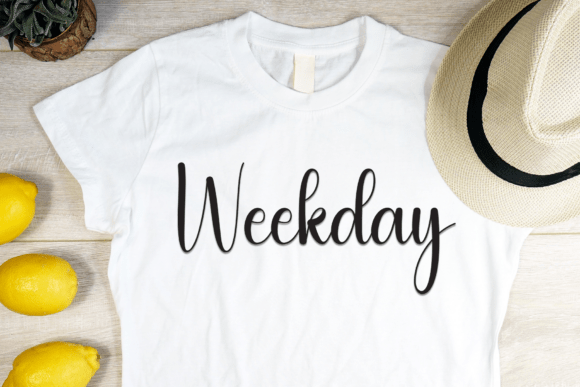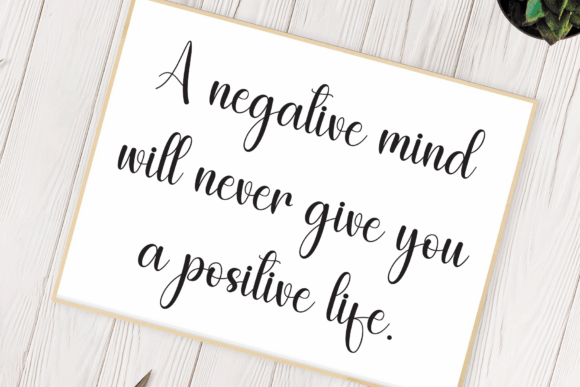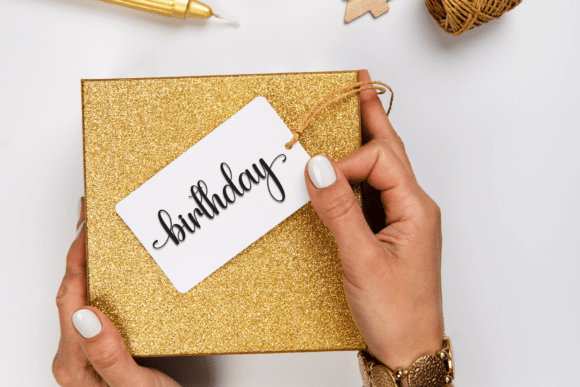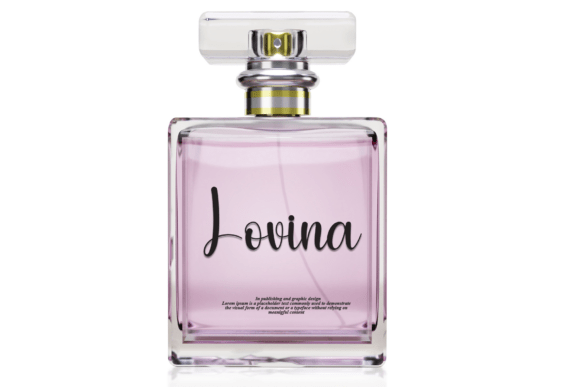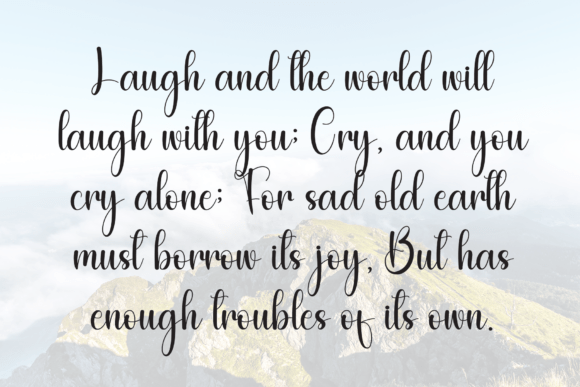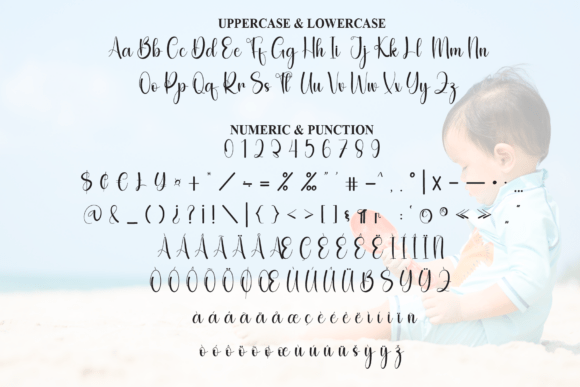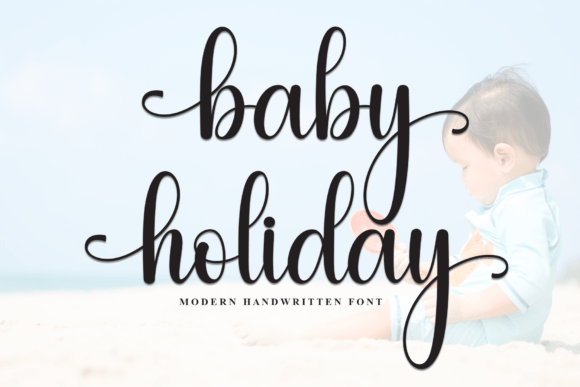
Baby Holiday Font: Elevate Your Designs with Artistic Flair and Contemporary Elegance
In the world of typography, few fonts manage to capture the perfect blend of artistic expression and modern sophistication. Baby Holiday Font is one such exceptional typeface that brings a refreshing combination of fluid brush strokes, dynamic curves, and expressive letterforms to the table. This stylish script font is designed to infuse your designs with a creative and sophisticated touch, making it an ideal choice for a wide range of applications.
The Essence of Hand-Painted Calligraphy with a Modern Twist
Baby Holiday Font draws inspiration from the elegance of hand-painted calligraphy but presents it with a contemporary twist. The fluid brush strokes and dynamic curves give the font a natural flow that is reminiscent of handcrafted artistry. Each letterform is carefully crafted to convey a sense of movement and expression, making the font perfect for designs that require a personal touch.
Ideal for a Variety of Design Applications
Whether you’re a designer looking to create stunning logos, crafting invitations for a special event, designing packaging that stands out, or enhancing your social media graphics, Baby Holiday Font is an excellent choice. Its versatility and stylish appearance make it suitable for various projects, allowing you to add a touch of elegance and creativity to your work.
Key Features of Baby Holiday Font
- Fluid Brush Strokes: The font features smooth, fluid brush strokes that give it a natural and hand-painted look.
- Dynamic Curves: The dynamic curves in the letterforms add a sense of movement and elegance to the font.
- Expressive Letterforms: Each letter is designed to be expressive and unique, contributing to the font’s artistic and sophisticated feel.
- Contemporary Elegance: The font combines traditional calligraphy elements with a modern aesthetic, making it perfect for contemporary designs.
- Versatility: Baby Holiday Font can be used for a variety of design projects, including logos, invitations, packaging, and social media graphics.
Adding Visual Impact and Versatility to Your Designs
Baby Holiday Font is not just about aesthetics; it’s also about delivering results. With its unique character and elegant appearance, this font can significantly enhance the visual impact of your designs. Its versatility ensures that it can be adapted to various design contexts, making it a valuable addition to any designer’s toolkit.
Tips for Using Baby Holiday Font Effectively
- Pair with Complementary Fonts: For maximum effect, pair Baby Holiday Font with simpler fonts to create contrast and highlight its unique features.
- Experiment with Colors: Take advantage of the font’s expressive nature by experimenting with different colors that match your brand or design theme.
- Use for Headlines and Titles: The font’s artistic flair makes it perfect for headlines and titles, where it can make a significant visual impact.
- Consider Size and Weight: Play around with the size and weight of the font to add hierarchy and emphasis to your designs.
Baby Holiday Font is a stylish and versatile typeface that can elevate your designs with its artistic flair and contemporary elegance. Its unique blend of fluid brush strokes, dynamic curves, and expressive letterforms makes it an excellent choice for designers and crafters looking to add a creative and sophisticated touch to their work. Whether you’re working on logos, invitations, packaging, or social media graphics, Baby Holiday Font is sure to deliver both visual impact and versatility.
Embrace the elegance and creativity of Baby Holiday Font in your next design project and experience the difference it can make.